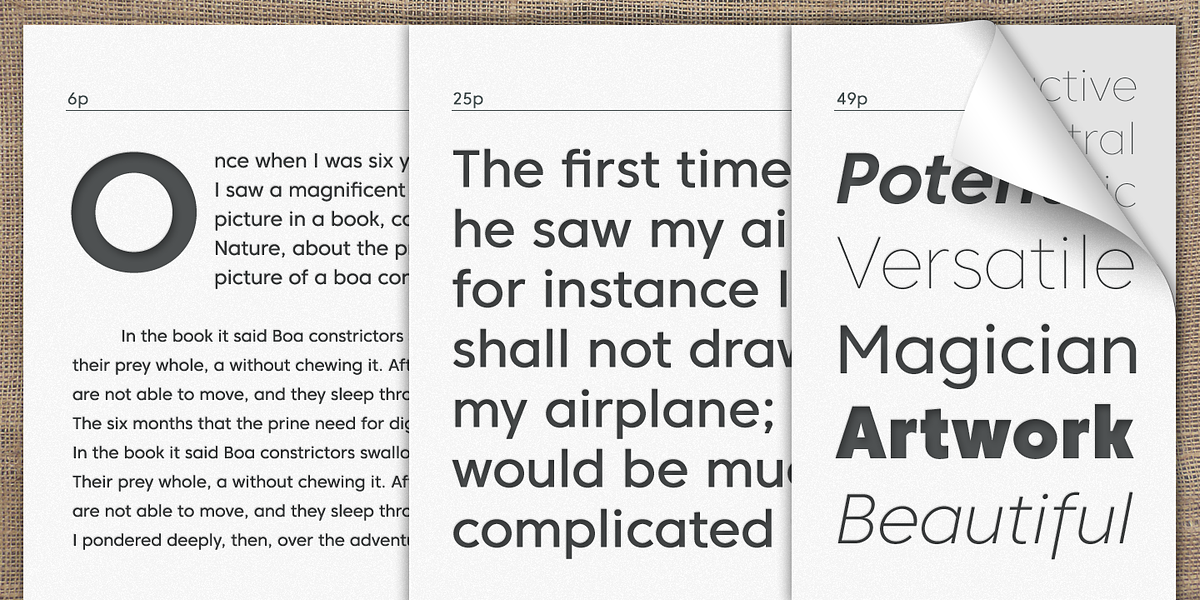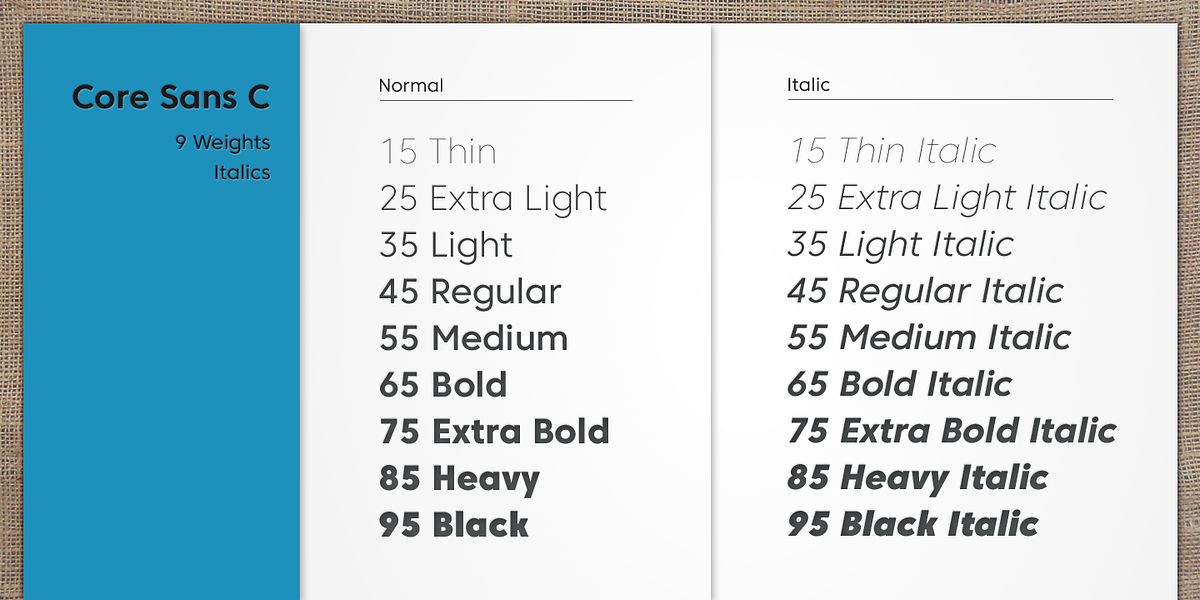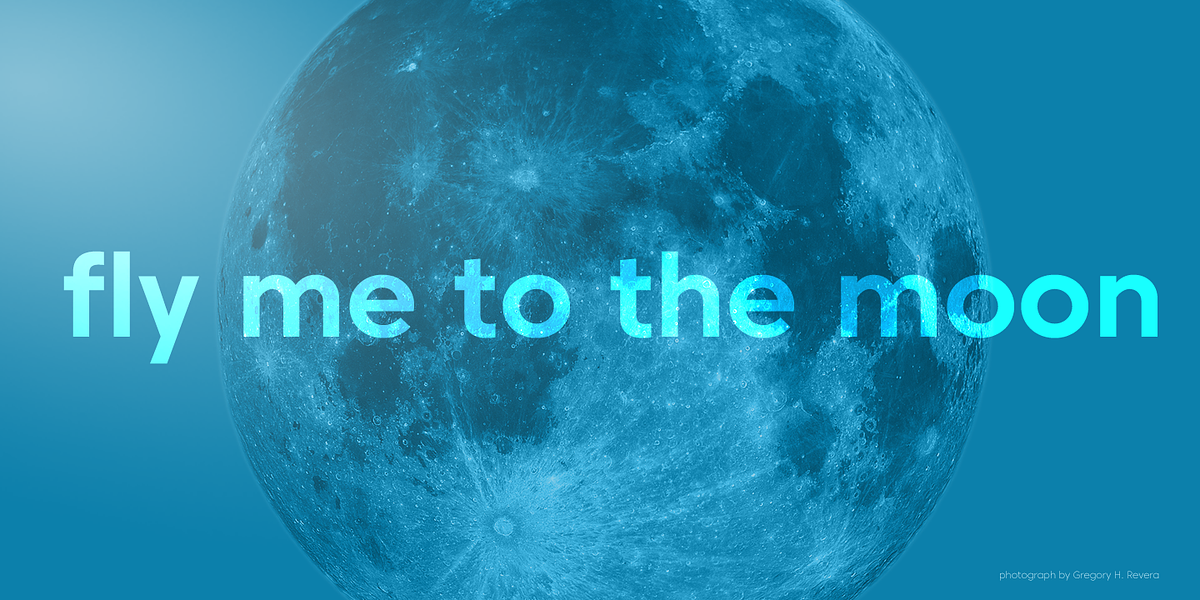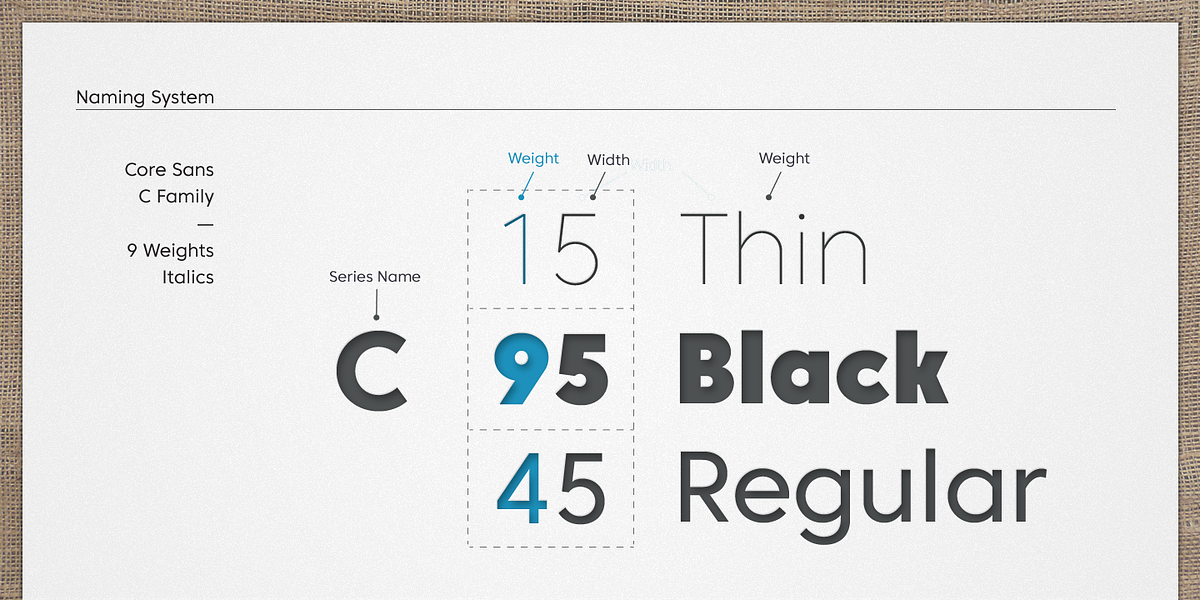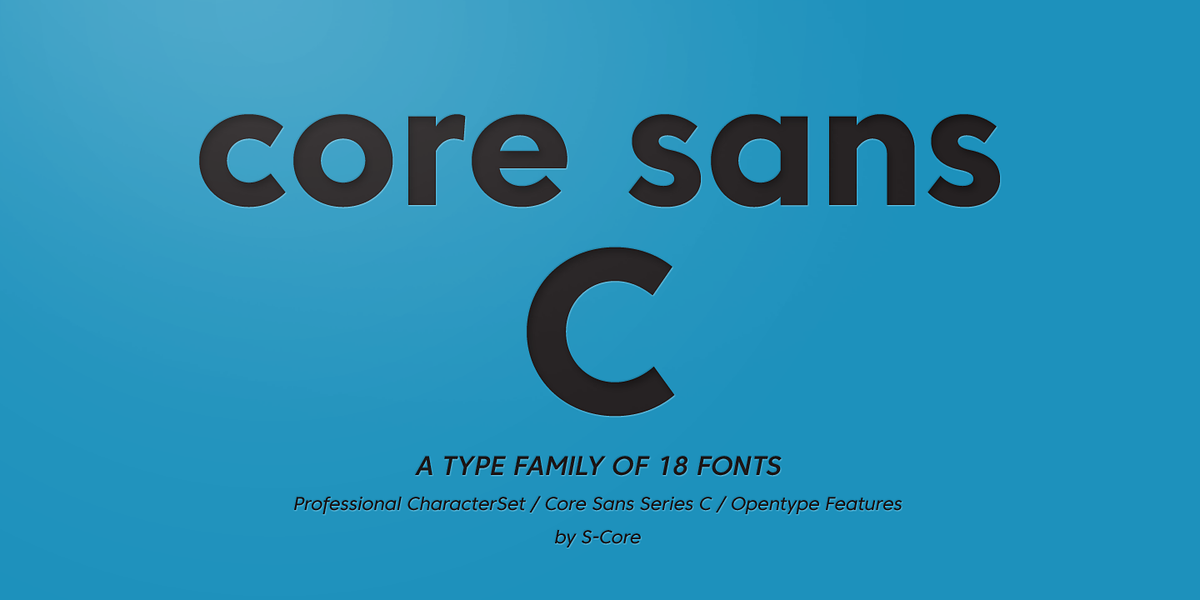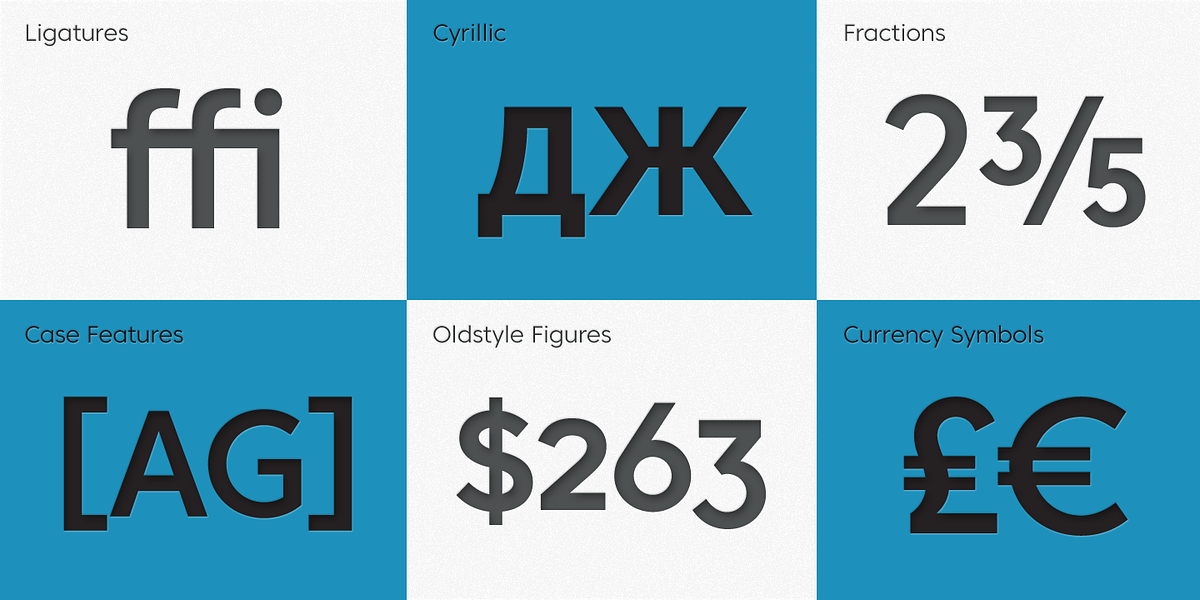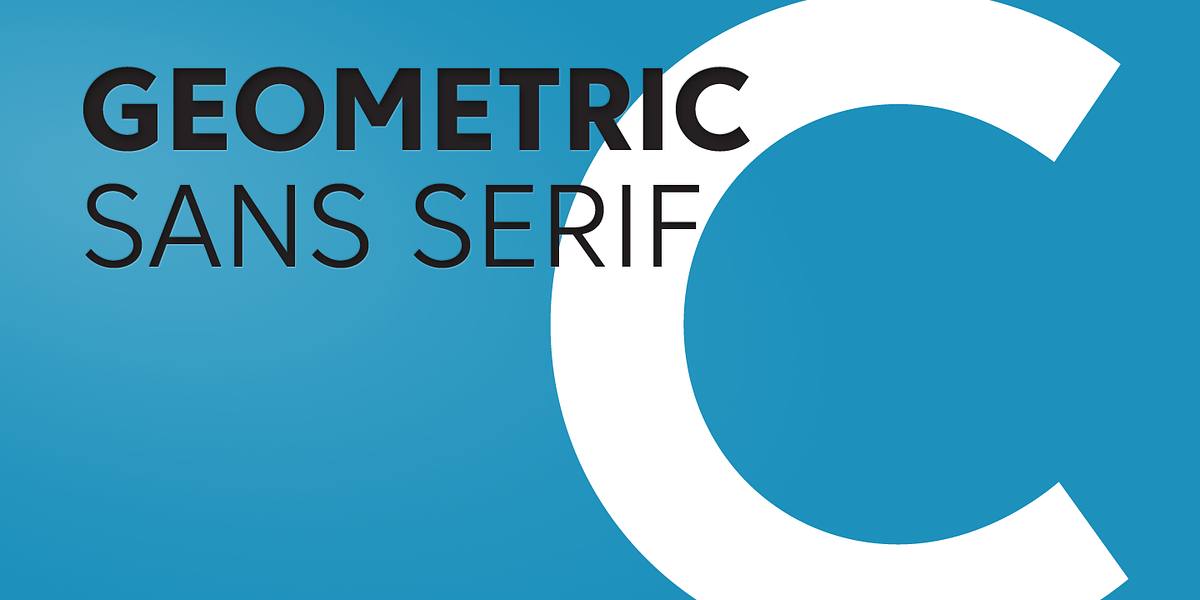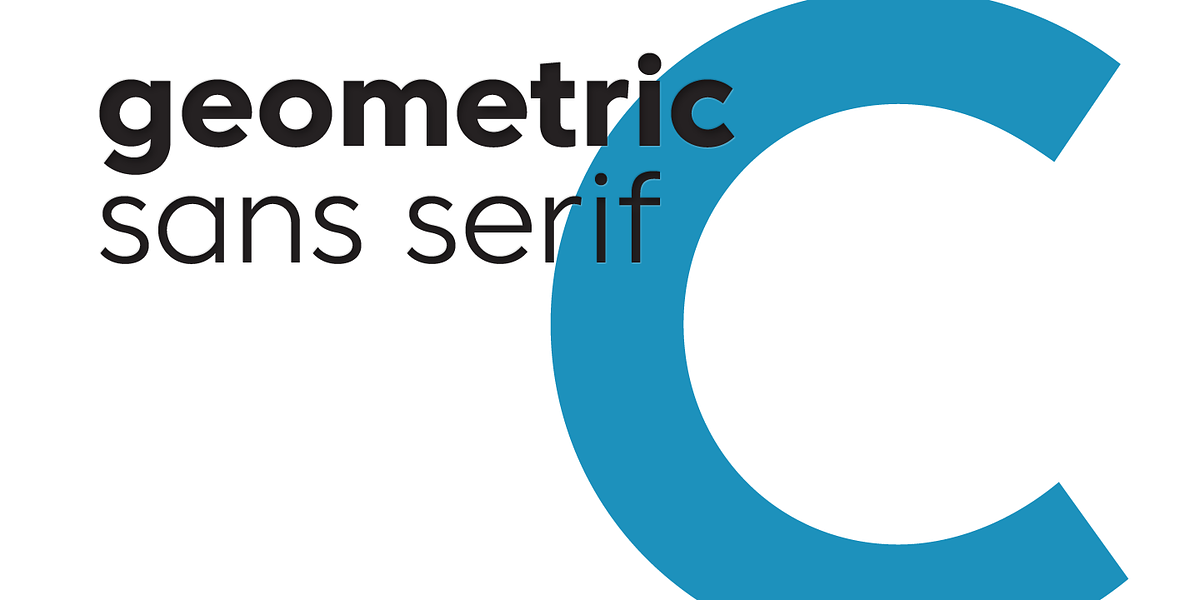
Core Sans C
Core Sans C is a geometric sans serif font family inspired by classics like Futura and Avenir. It features near-perfect circles and squares in its letterforms. The high x-height enhances readability, making it suitable for both body text and display purposes.